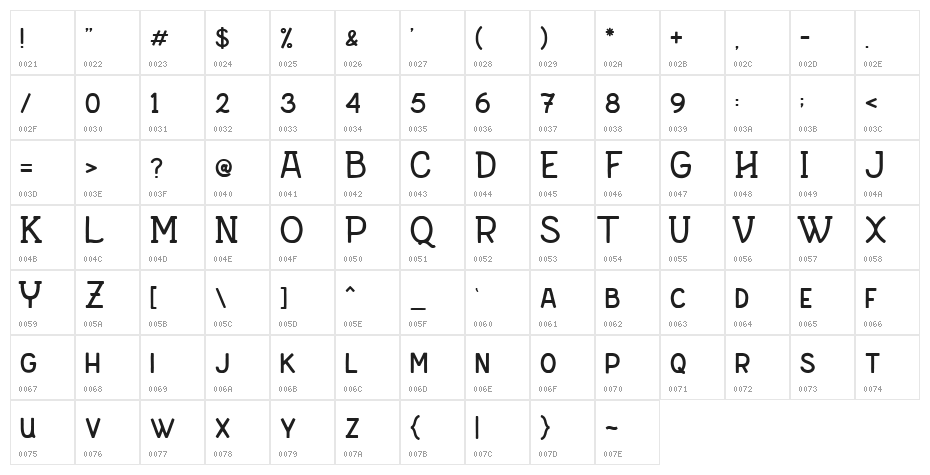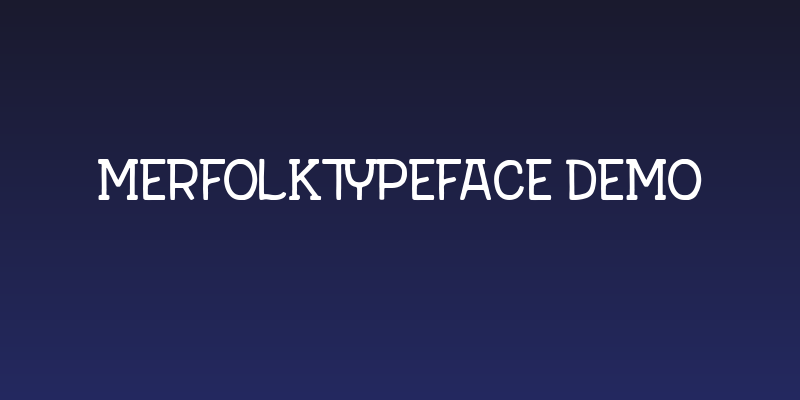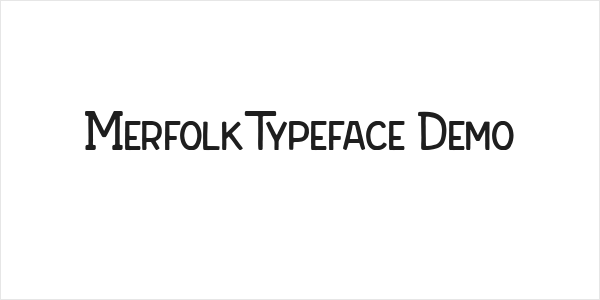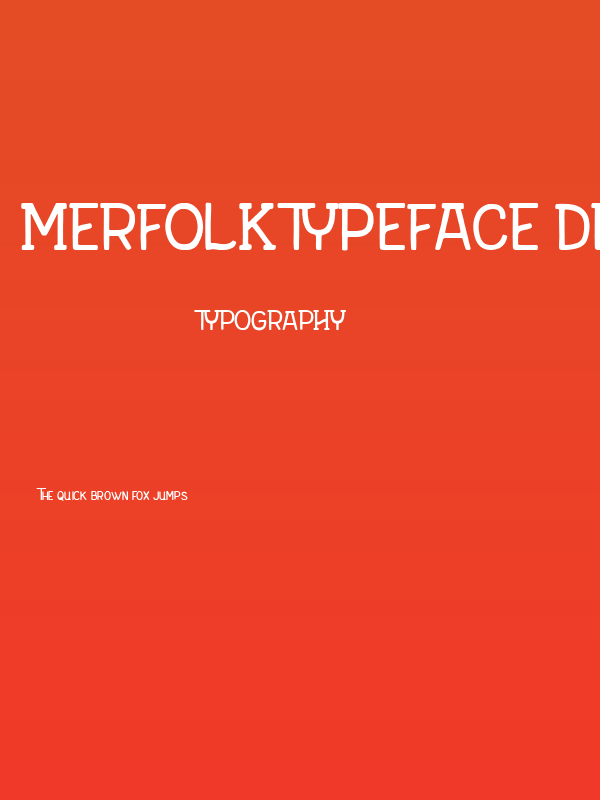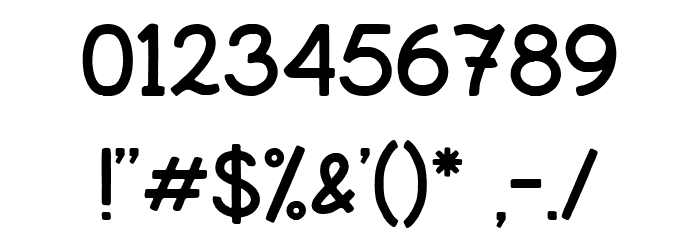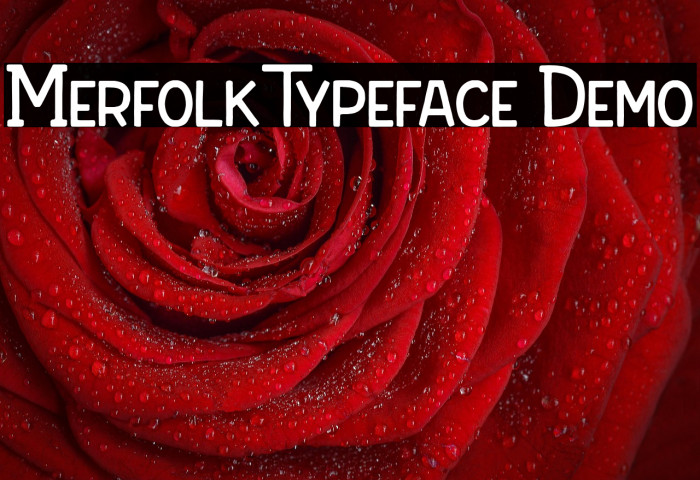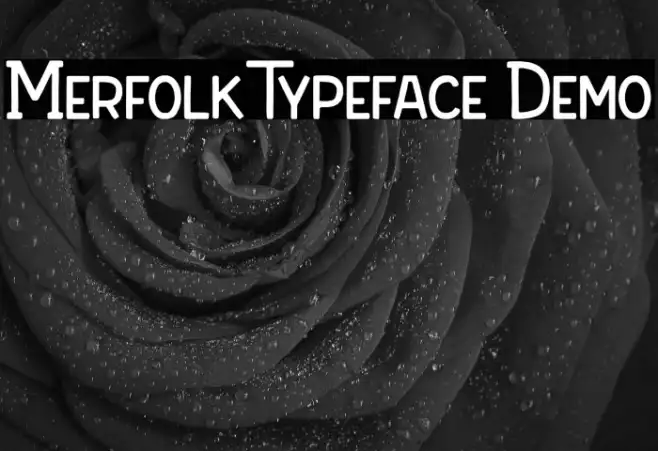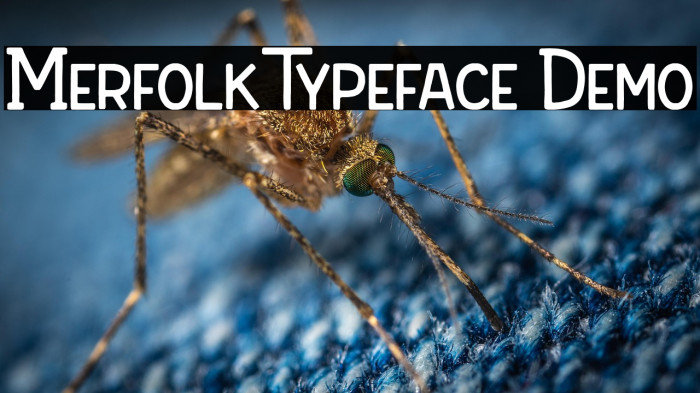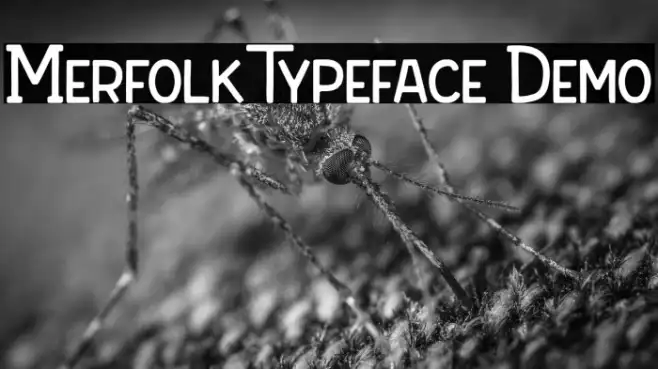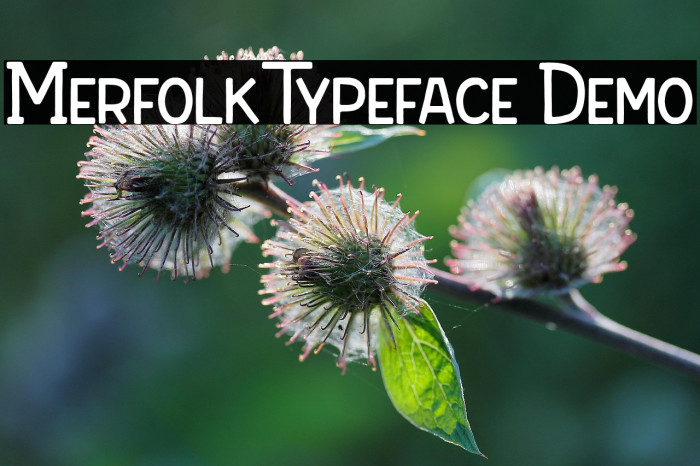
Merfolk Typeface Demo Font
Merfolk Typeface Demo Description
This typeface features a playful and slightly whimsical design, characterized by its bold and rounded letterforms. The uppercase letters have a consistent height, while the lowercase letters maintain a similar width, creating a harmonious balance. The numbers are clear and easy to read, with a uniform style that complements the alphabet. Special characters are distinct and well-integrated, adding versatility to the font. The overall appearance is friendly and approachable, making it suitable for a variety of creative projects.
| Proposed Projects | Ideal for children's books, playful branding, posters, and creative digital content. |